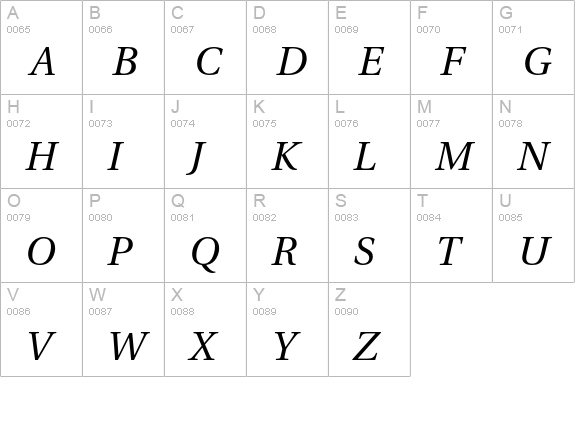
Utopia Italic is a distinctive, italic variant in the Utopia typeface family \xE2\x80\x94 well suited to design and typography projects.
Utopia Italic is a captivating and elegant typeface that embodies the essence of timeless beauty. Its flowing curves and delicate serifs create an air of sophistication and grace, making it the perfect choice for any project that requires a touch of class. With its refined and balanced letterforms, Utopia Italic effortlessly combines tradition with modernity, offering a refreshing take on traditional serif fonts. Whether used in body text or headlines, this font exudes a sense of harmony and balance that is sure to captivate readers. One of the most remarkable aspects of Utopia Italic is that it is available for free download at FontsMarket.com. This means that designers and typographers from all walks of life can access this exquisite font without any financial burden, allowing them to bring their creative visions to life without compromise. Utopia Italic's versatility knows no bounds. From elegant wedding invitations to sophisticated branding projects, this font adds a touch of refinement to any design. Its legibility and readability make it a reliable choice for long-form content, ensuring that readers can effortlessly engage with the text. In addition to its aesthetic appeal, Utopia Italic also boasts an extensive character set, including support for multiple languages and a range of punctuation marks. This versatility ensures that designers can confidently use this font for a wide variety of projects, regardless of the language or writing system involved. Utopia Italic is more than just a font; it is a gateway to a world of creativity and expression. Its timeless beauty and accessibility allow designers to unleash their imagination, creating stunning visuals that leave a lasting impression. So, whether you are a seasoned designer looking to add a touch of elegance to your latest project or a budding typographer searching for the perfect font to showcase your creativity, Utopia Italic is a must-have in your font library. And the best part? It's free to download at FontsMarket.com, ensuring that this font is within reach for anyone seeking to elevate their design endeavors.